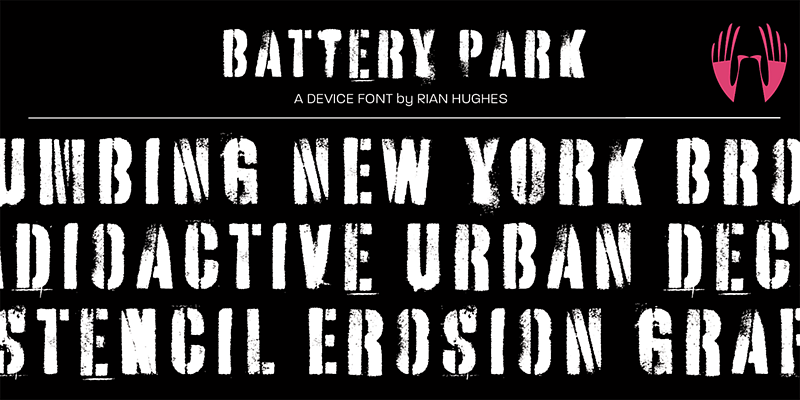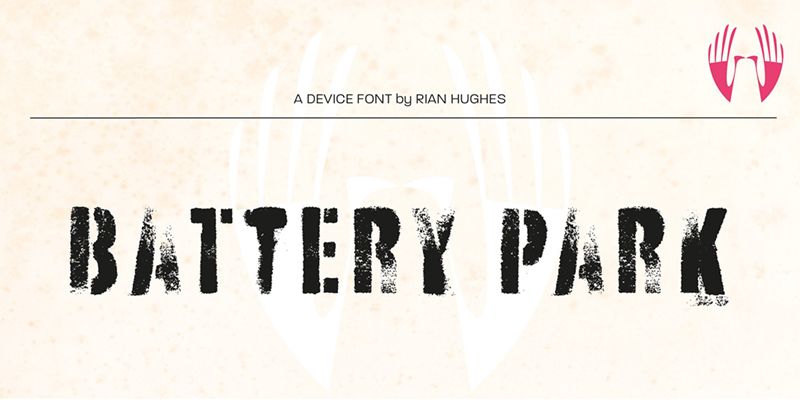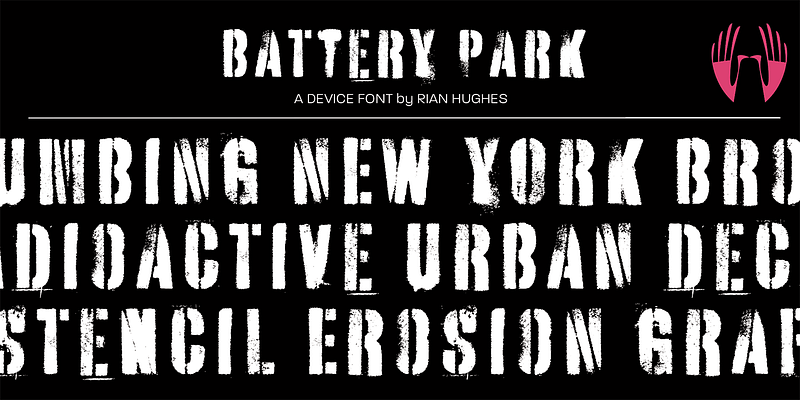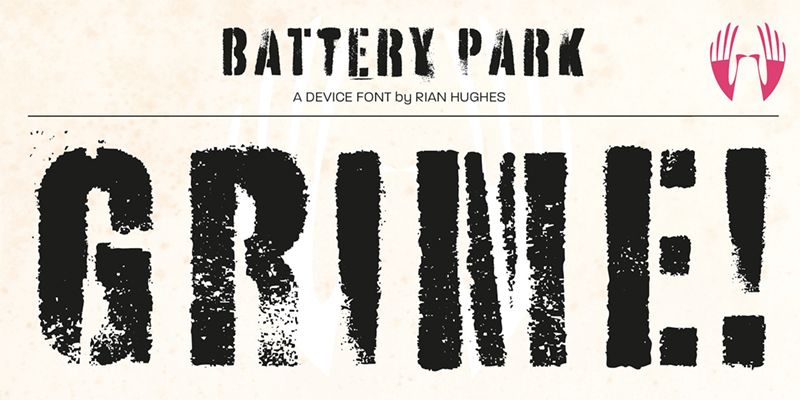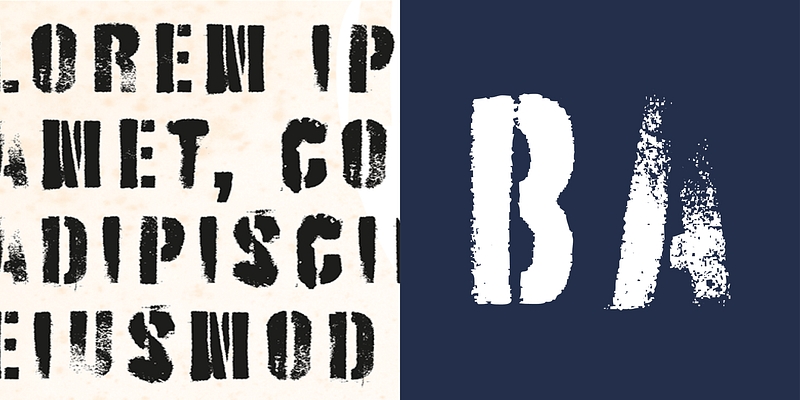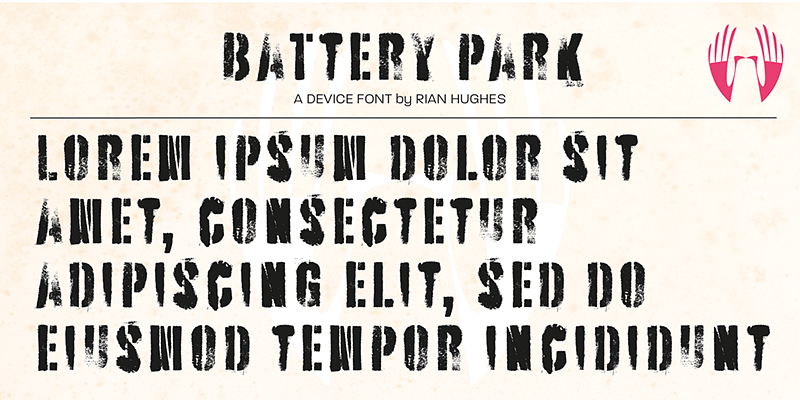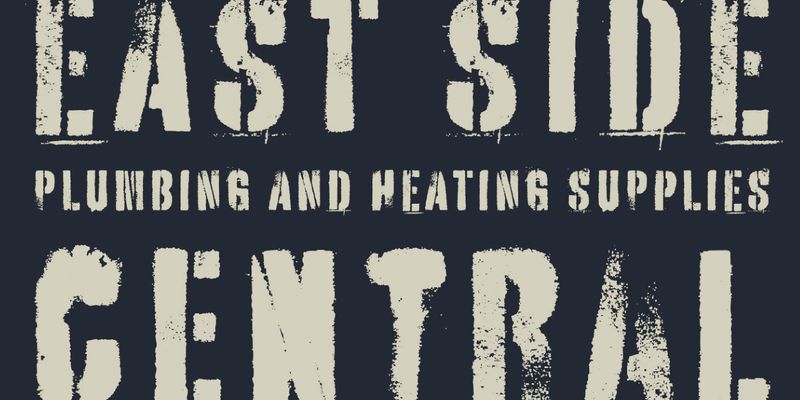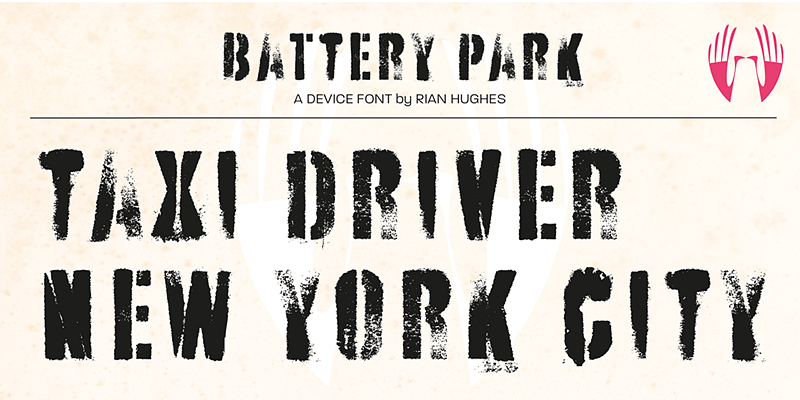
A heavy distressed stencil with urgency and grit. Best used larger, where the details can be seen.
Type, design and imagery by English illustrator and typographer Rian Hughes.